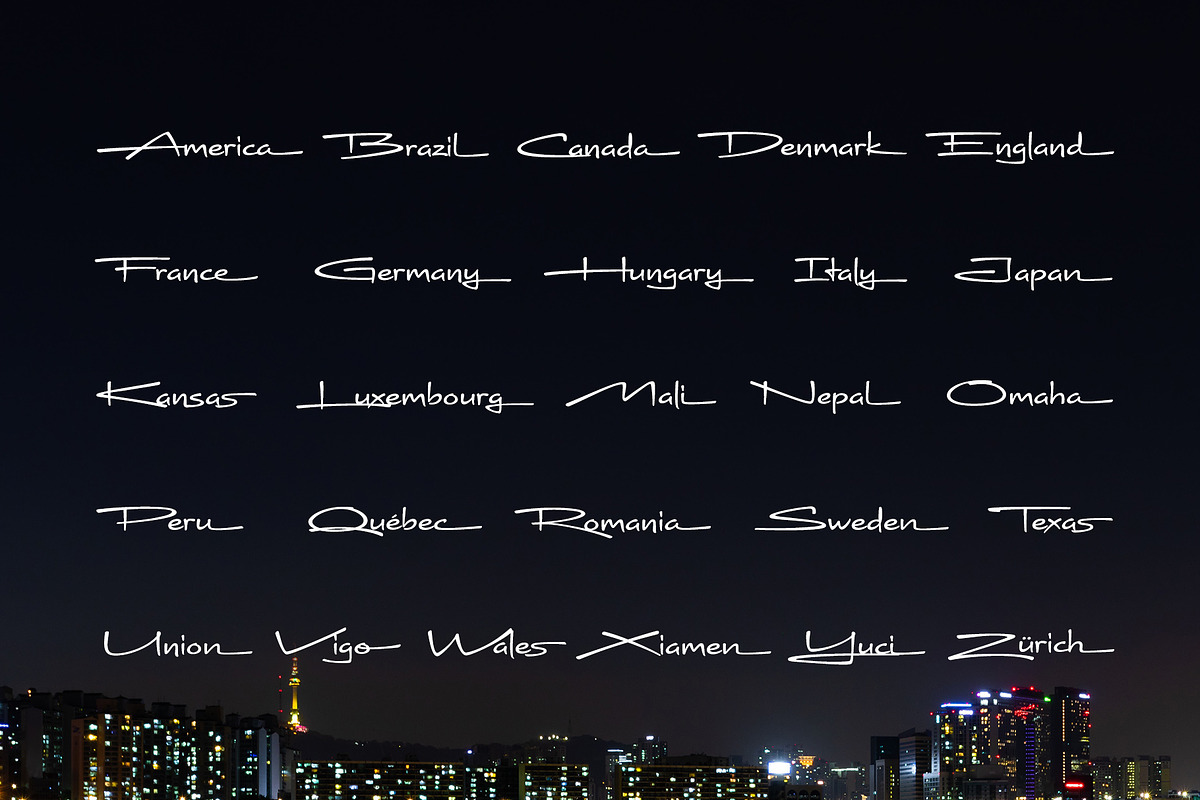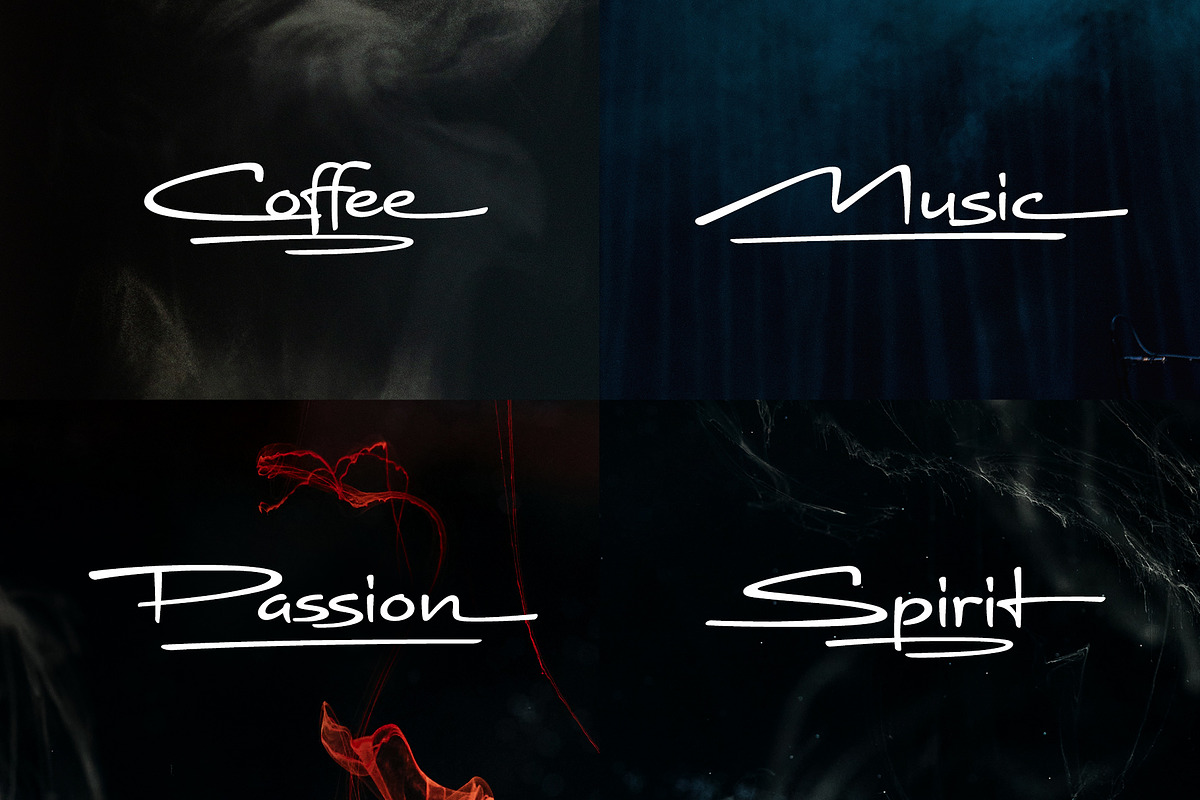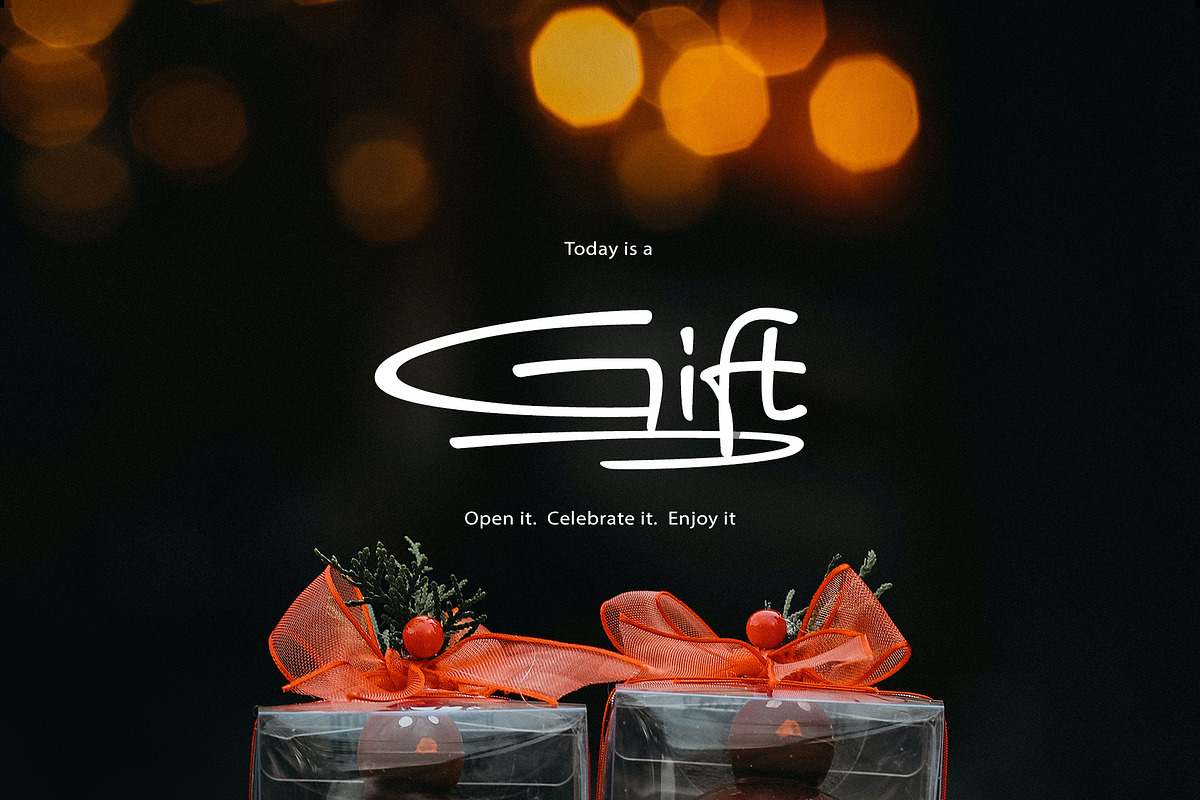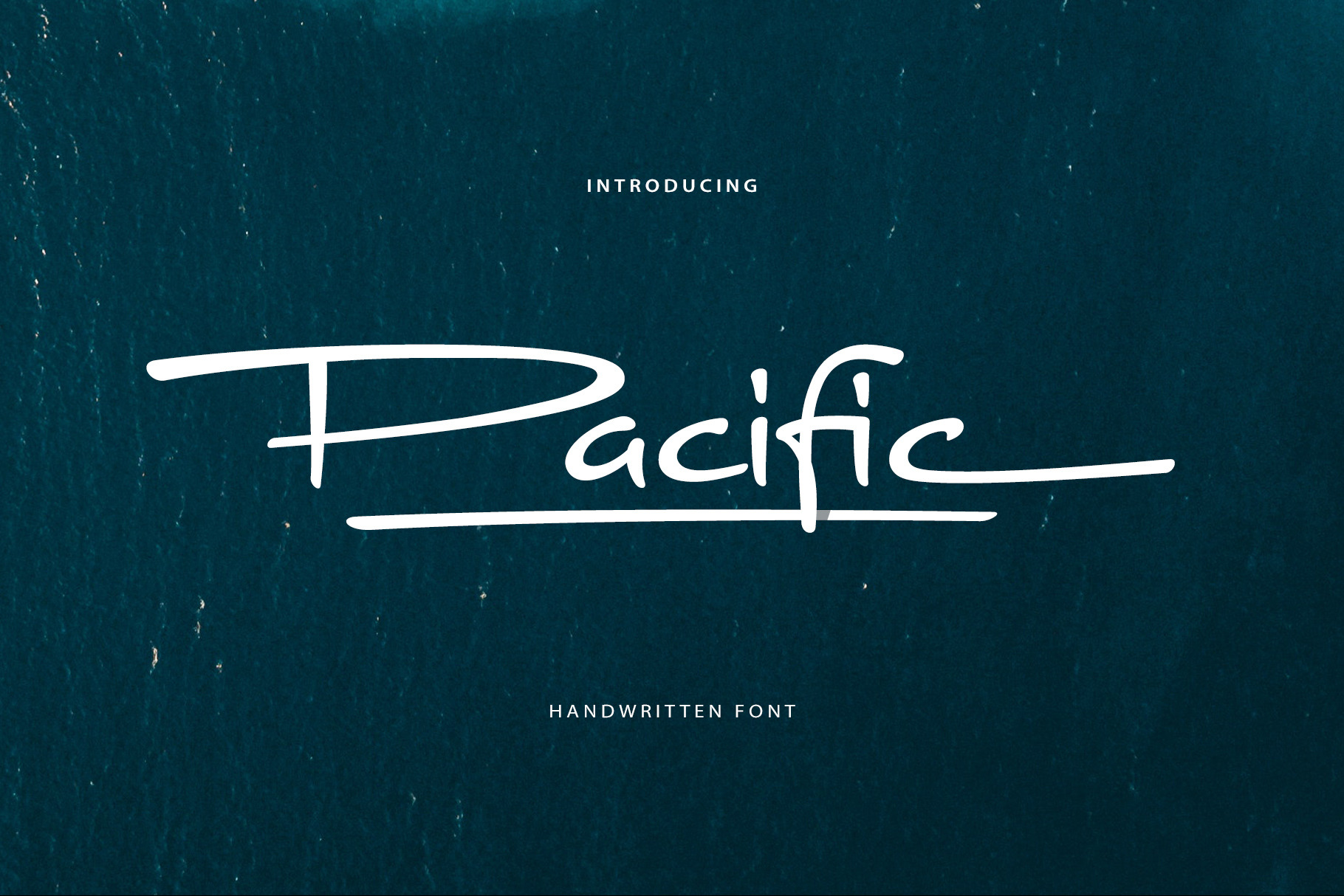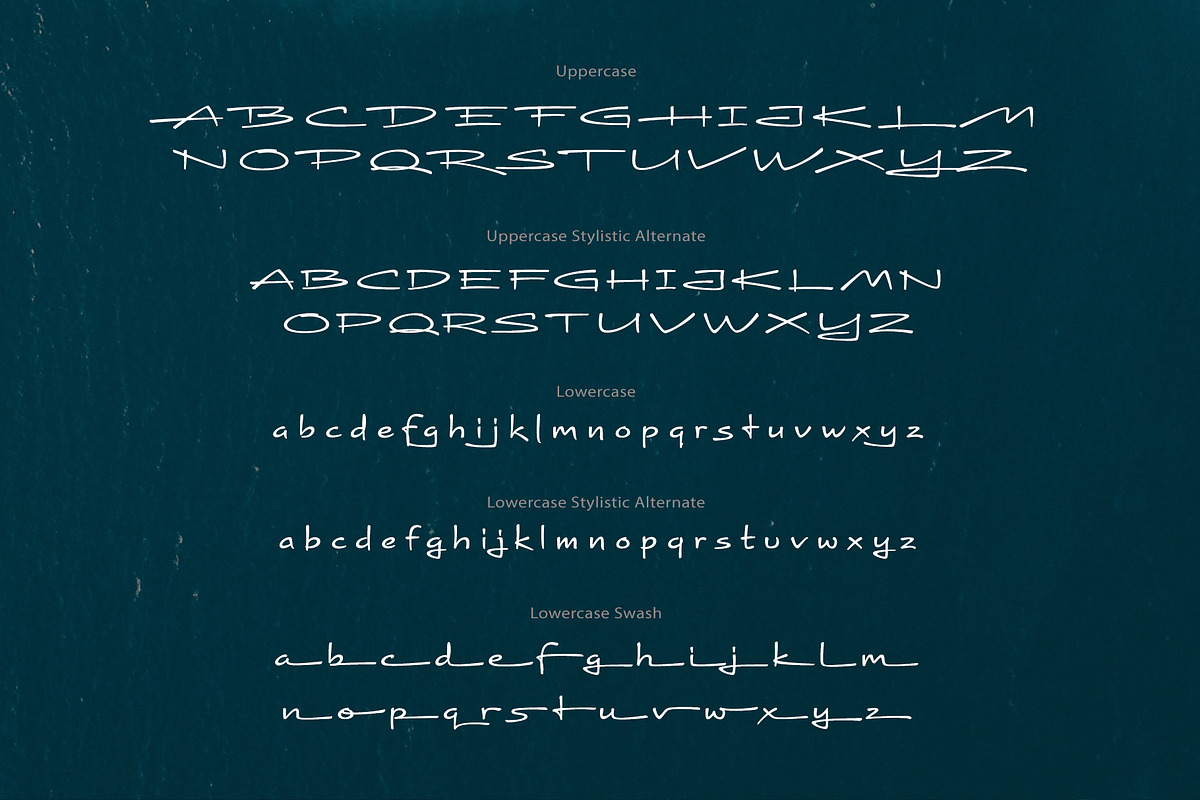
Pacific Handwritten Font
Pacific is a nice handwritten font. It gives a complete authentic feel on your text.
Total 297 glyphs available including alphabets, numerals, punctuation, ligature, stylistic alternaet, swash and multilingual characters.
To type underline strokes press: _a _b _c _d _e (keep the 'ligature' button on)